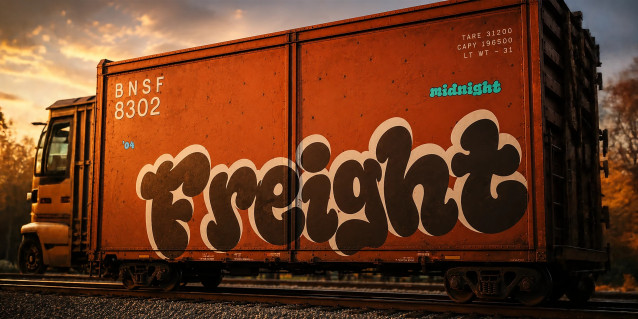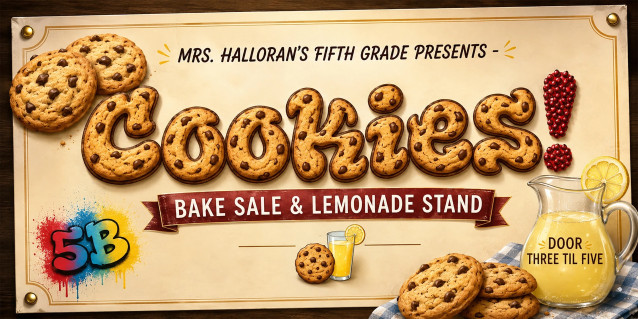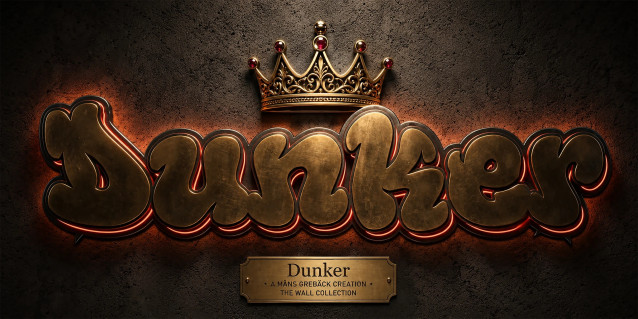
Dunker Font
Dunker is a fat-bubble display face with rounded counters and a heavy, even weight.
Each letter is built from full pillowed forms that pad into one another, with little flecks of negative space where the strokes meet. Nothing tapers — the weight stays the same from one corner to the next — and the bowls of the b, d, p, and q expand until they almost touch the next letter.
There is a swing to the lowercase that comes straight out of the throw-up tradition, and a warmth in the caps that feels closer to a 70s record sleeve. You can picture it sprayed five colours deep across a cinderblock wall behind a half-court, or stitched in chenille across the chest of a varsity hoodie.
The font is built with advanced OpenType functionality and guaranteed top-notch quality, containing stylistic and contextual alternates, ligatures and more automatic and manual features; all to give you full control and customizability. It has extensive lingual support, covering all Latin-based languages, from North Europa to South Africa, from America to South-East Asia. It contains all characters and symbols you’ll ever need, including all punctuation and numbers.
Dunker is a fat-bubble display face with rounded counters and a heavy, even weight.
Each letter is built from full pillowed forms that pad into one another, with little flecks of negative space where the strokes meet. There is a swing to the lowercase that comes straight out of the throw-up tradition, and a warmth in the caps.
You can picture it sprayed five colors deep across a cinderblock wall behind a half-court, or stitched in chenille across the chest of a varsity hoodie.